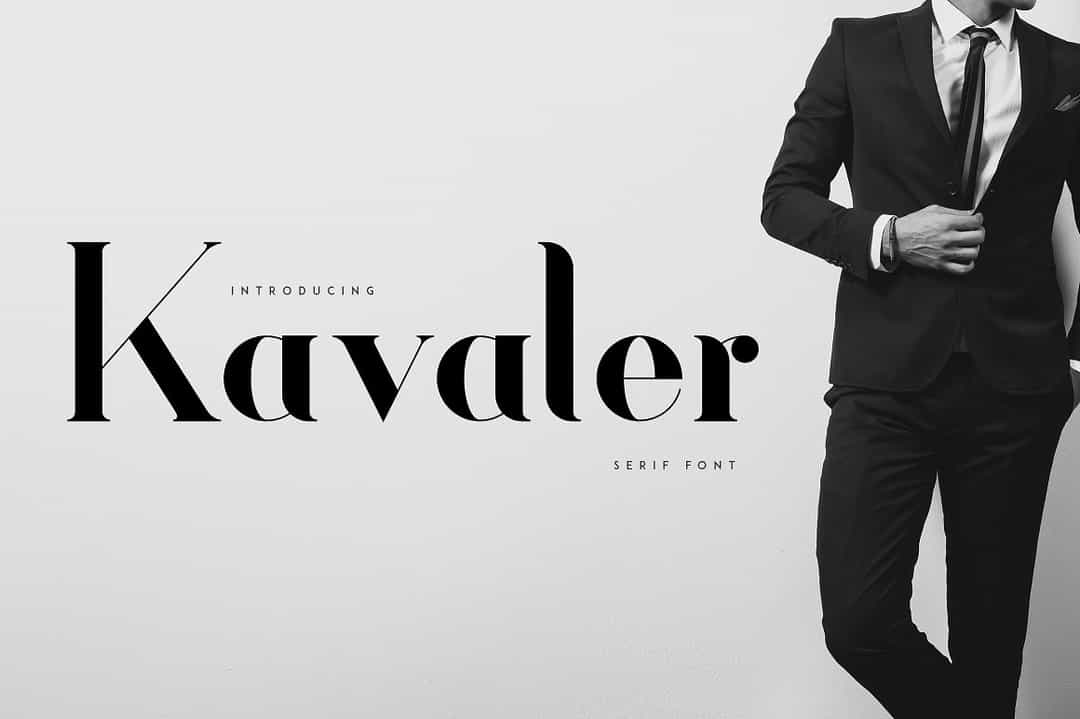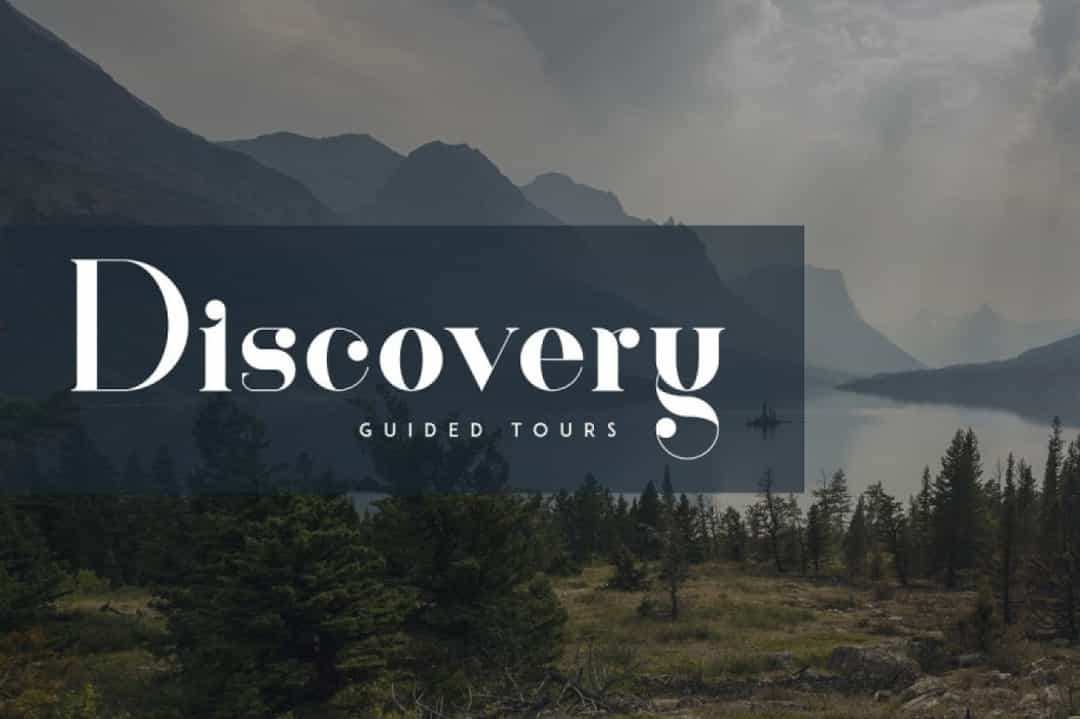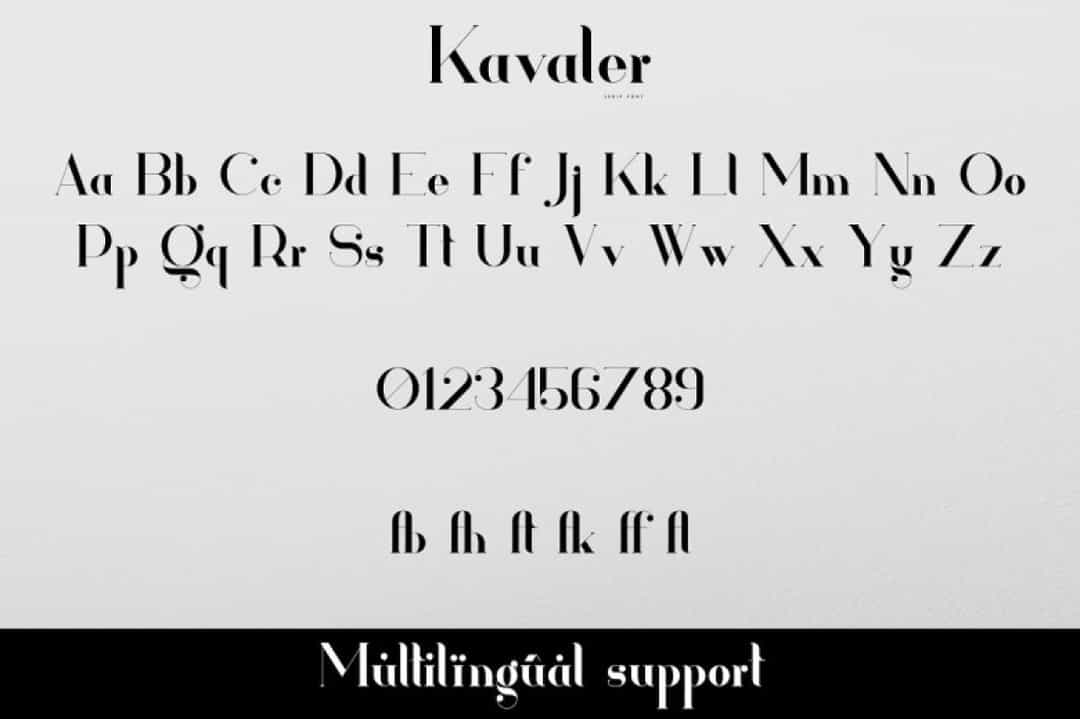
Kavaler is an elegant and clean multilingual font, offering both small and large size support. Ideal for homeware projects, branding designs, packaging for products magazines and magazine pages as headers as well as text overlays on every background image – Kavaler makes an elegant text overlay to every picture background!